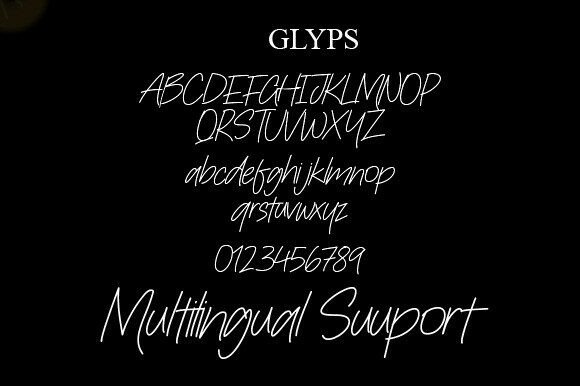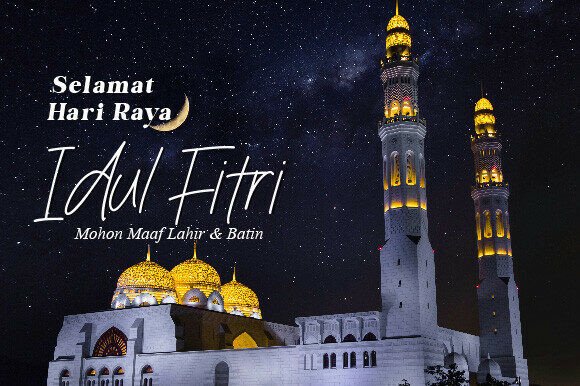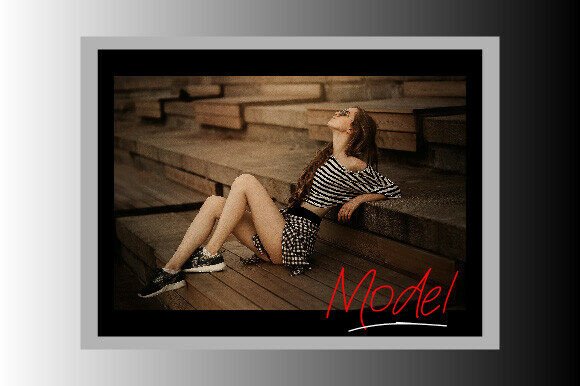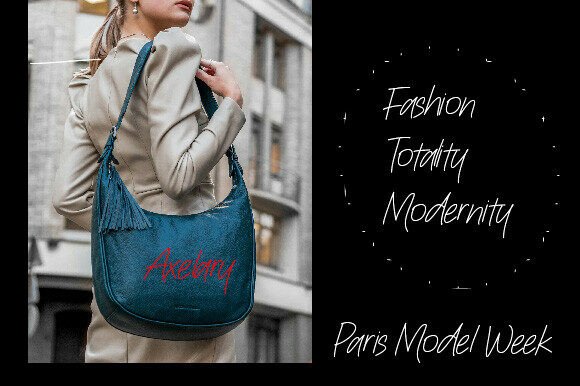
Introducing Brooks Font: The Ultimate Handwritten Script for Modern Designs
In the world of typography, a good font can make all the difference in the success of a design project. Whether you’re a professional designer, a crafty DIY enthusiast, or a business owner looking to elevate your brand, the right font can add a personal touch and convey your message with style. That’s where Brooks Font comes in – a beautiful, natural handwritten script font that’s clean, elegant, and slightly modern.
The Characteristics of Brooks Font
Brooks Font is designed to look authentic and effortless, making it perfect for a wide range of design projects. Its smooth strokes and balanced letterforms create a sense of harmony and sophistication, making it ideal for both professional and creative designs. The font’s natural handwritten feel gives it a unique and personal touch, setting it apart from more traditional and formal fonts.
One of the standout features of Brooks Font is its versatility. It’s suitable for a variety of design applications, including branding, quotes, packaging, and modern creative projects. Whether you’re looking to create a logo, a social media graphic, or a website, Brooks Font is the perfect choice.
The Benefits of Using Brooks Font
• Authentic and Effortless Look: Brooks Font is designed to look natural and authentic, giving your designs a personal touch.
• Clean and Elegant: The font’s smooth strokes and balanced letterforms create a sense of sophistication and elegance.
• Versatile: Brooks Font is suitable for a wide range of design applications, from branding and packaging to quotes and creative projects.
• Easy to Read: The font’s clear and balanced letterforms make it easy to read, even at small sizes.
How to Use Brooks Font in Your Designs
• Branding: Use Brooks Font to create a logo or brand identity that’s personal and unique.
• Quotes and Inspirationals: Add a touch of elegance and sophistication to your quotes and inspirational graphics.
• Packaging: Use Brooks Font to add a personal touch to your product packaging and labels.
• Web Design: Incorporate Brooks Font into your website design to add a touch of elegance and sophistication.
Font Name Brooks Font
Author gunaloe12
In conclusion, Brooks Font is a beautiful and versatile handwritten script font that’s perfect for modern designs. Its natural and authentic look, combined with its clean and elegant feel, make it suitable for a wide range of design applications. Whether you’re a professional designer or a crafty DIY enthusiast, Brooks Font is the perfect choice for adding a personal touch to your designs.